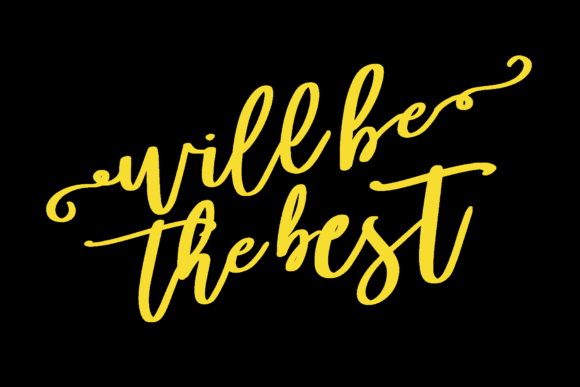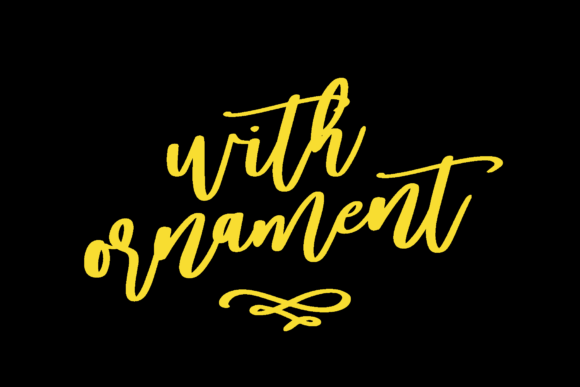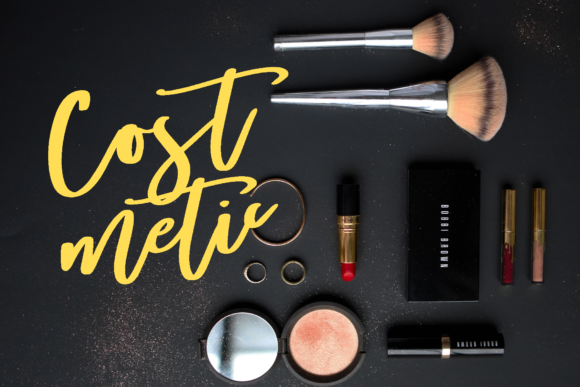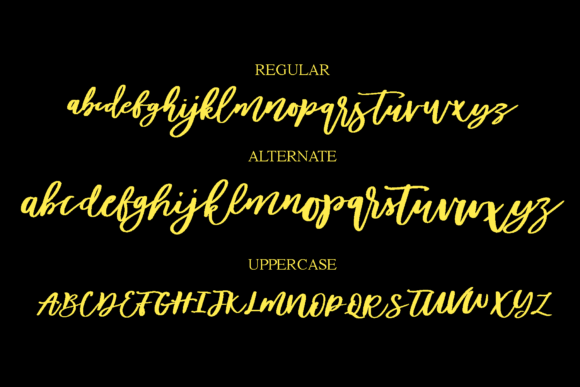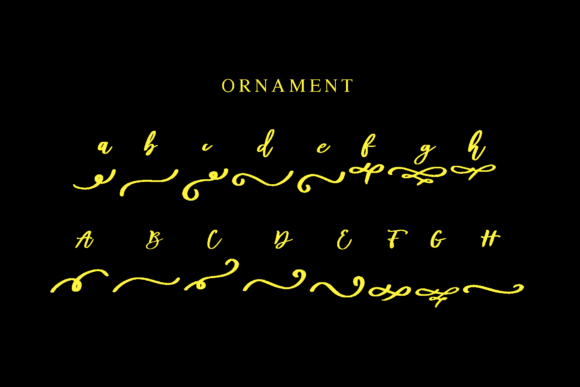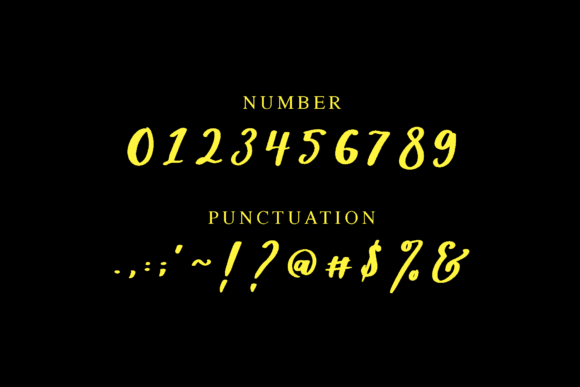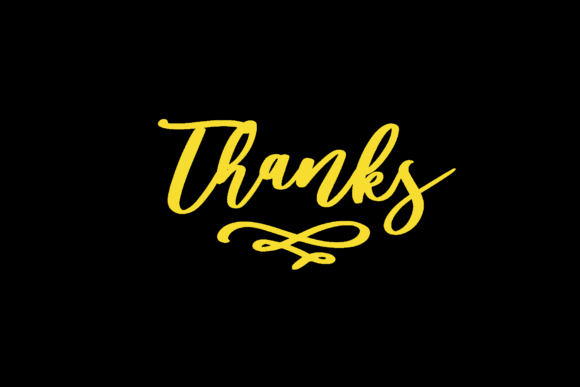
HomeScript FontsDiveil Script Font Script Fonts Diveil Script Font FacebookXPinterestWhatsApp Diveil Script Font Poster 2 Diveil Script Font Poster 3 Diveil Script Font Poster 4 Diveil Script Font Poster 5 Diveil Script Font Poster 6 Diveil Script Font Poster 7 Diveil Script Font Poster 8 About Diveil Script Font Diveil is a fun and cool handwritten font with a unique charm. Get inspired by its unique flavor! DOWNLOAD NOW People also explored March Calligraphy Font Abella Font Vintage Font Melaty Font Delight Script Font Marshcerry Font Medieval Times Font Antelami Font Bestover Font 370 0 TagsDiveil Script Font Previous articleLazy Cat FontNext articleThe Submit Font LEAVE A REPLY Cancel reply Comment: Please enter your comment! Name:* Please enter your name here Email:* You have entered an incorrect email address! Please enter your email address here Website: Save my name, email, and website in this browser for the next time I comment. Personal Use Free Velasco Personal Use Free Read more about this font Creativo Personal Use Free Read more about this font Oatmeal Personal Use Free Read more about this font Drip October Font Personal Use Free Read more about this font BLOG How to Install and Use Fonts on Windows, macOS, and Web Projects How to Install and Use Fonts on Windows, macOS, and Web Projects Fonts are a crucial part of design and branding. Whether you’re designing a... Best Fonts for T-Shirt Design – Top 2025 Picks Using Fonts in Digital Marketing: Tips to Strengthen Your Brand Identity Modern Sans-Serif Fonts That Brands Love in 2025